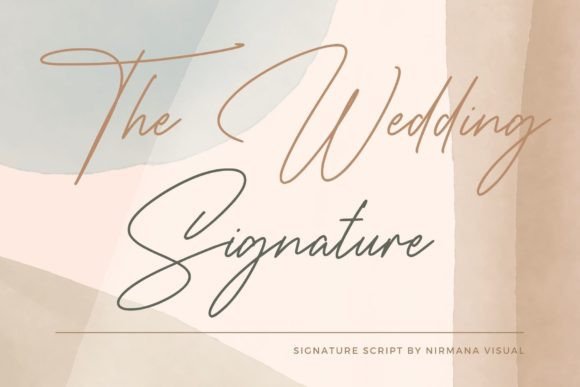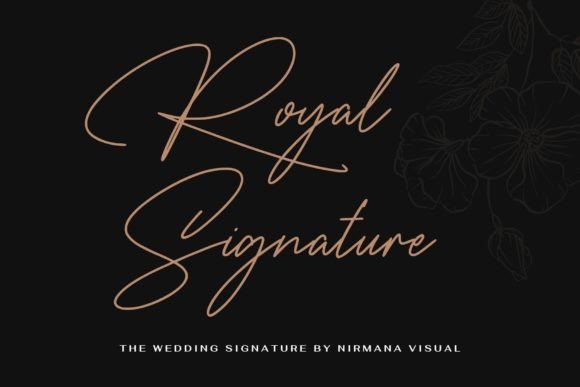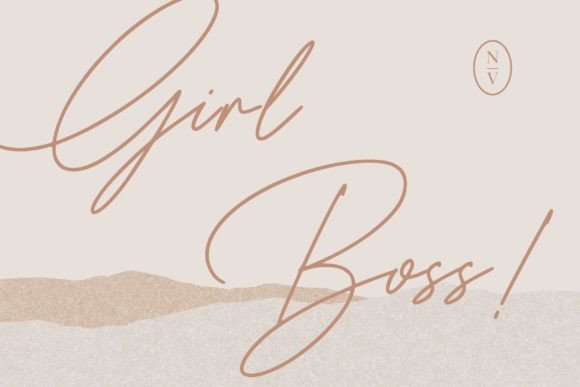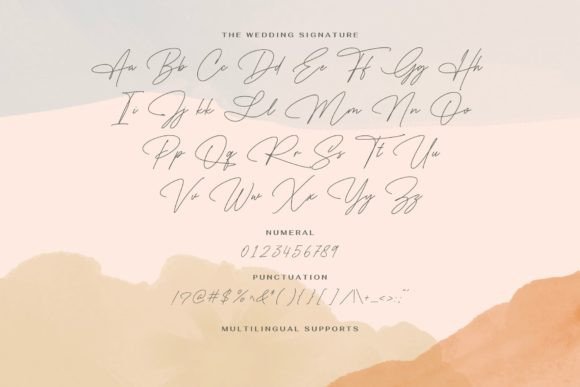
The Wedding Signature is a dazzling script font. This font is neatly crafted and highly detailed. Whatever the topic, this font will be a wonderful asset to your font library, as it has the potential to enhance any creation.
The Wedding Signature Font